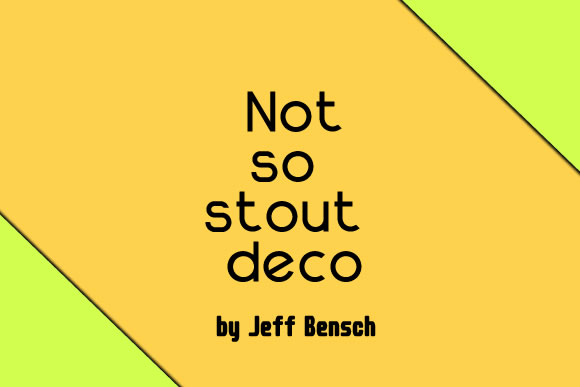
Journey through the world of typography with Not so Stout Deco Font, a captivating sans serif font that dances across your screens and printouts, leaving a trail of elegance and charm. Its graceful curves and sharp edges are like a finely-tuned orchestra, harmonizing together to deliver a visual masterpiece.
With Not so Stout Deco Font, you'll discover a world of possibilities, from breathtaking logos that demand attention to eye-catching social media posts that sparkle with personality. Craft stunning invitations that transport your guests to a bygone era of sophistication, or design business cards that leave a lasting impression, setting you apart from the mundane.
This meticulously crafted font is a true chameleon, effortlessly adapting to any style or theme. It seamlessly blends vintage and modern aesthetics, creating a timeless appeal that will never go out of fashion. Whether you're designing for a retro-inspired project or a sleek and contemporary layout, Not so Stout Deco Font delivers like no other.
Its versatility extends beyond aesthetics, as it effortlessly accommodates various languages, ensuring your message reaches a global audience. Let your words shine in multiple tongues, allowing cultures to connect through the universal language of beauty and expression.
With Not so Stout Deco Font, you're not just purchasing a font; you're embarking on a creative journey where imagination and innovation dance hand in hand. Embrace the power of typography and unlock your storytelling potential like never before.